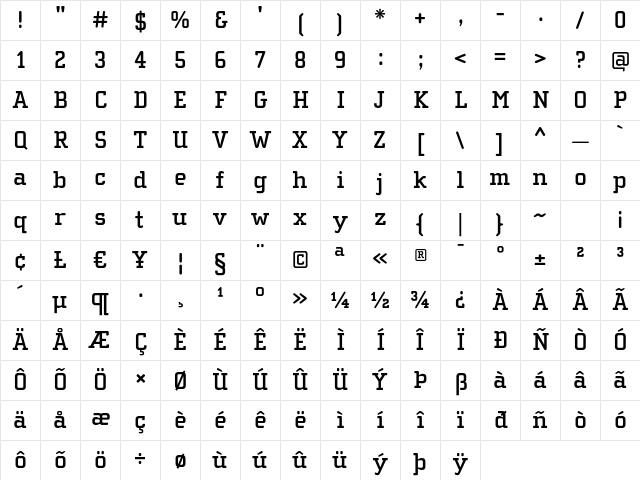
ChollaSlab Bold Free Font
ChollaSlab Bold
Design Context for ChollaSlab
ChollaSlab features prominent, blocky serifs that give it a confident, grounded presence - equally at home in editorial settings and bold branding work. Its bold stroke weight gives it real presence on the page.
Pro Tip: Use ChollaSlab for headlines and subheadings where its slab serifs can make an impression. It also holds up well in mid-size body copy thanks to its sturdy construction.